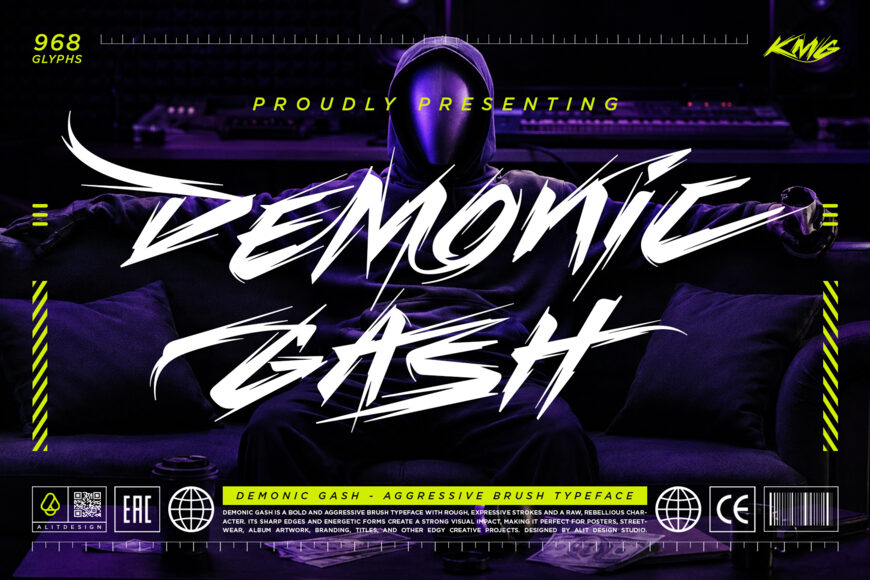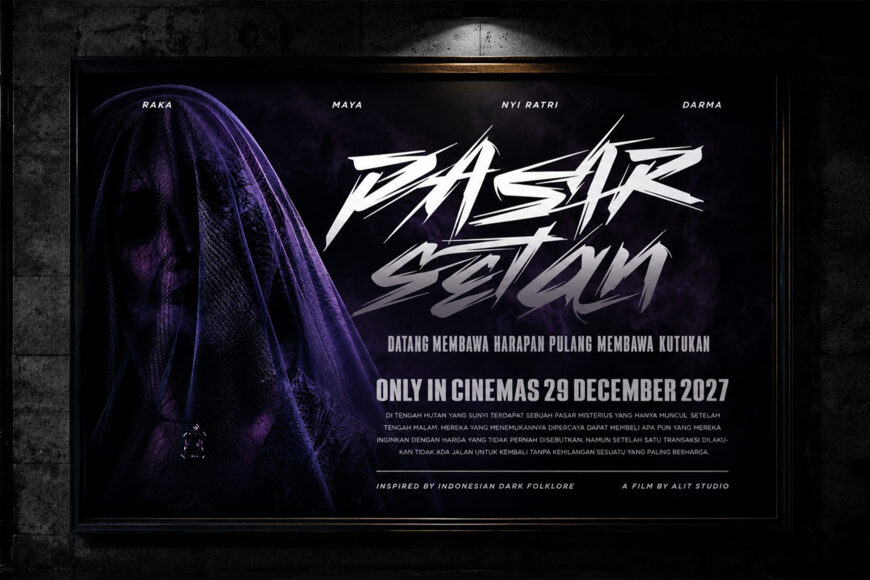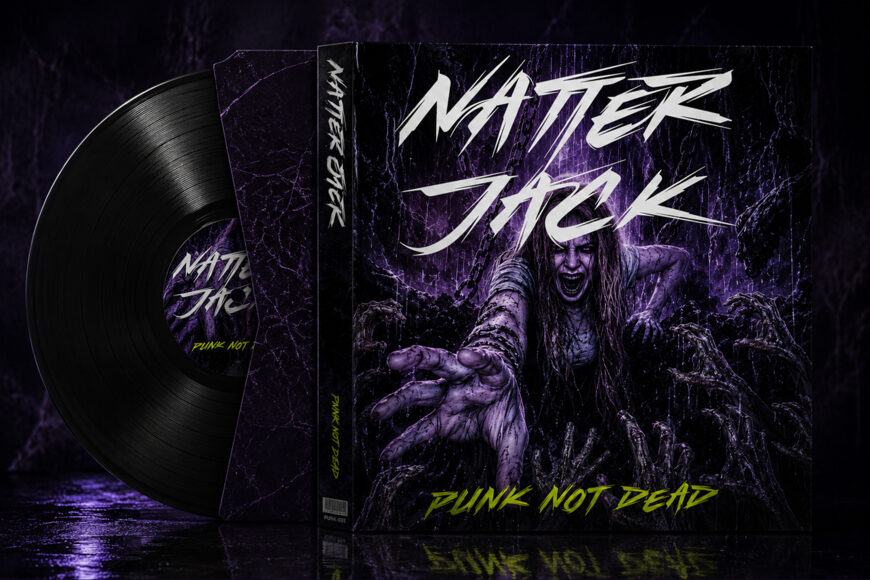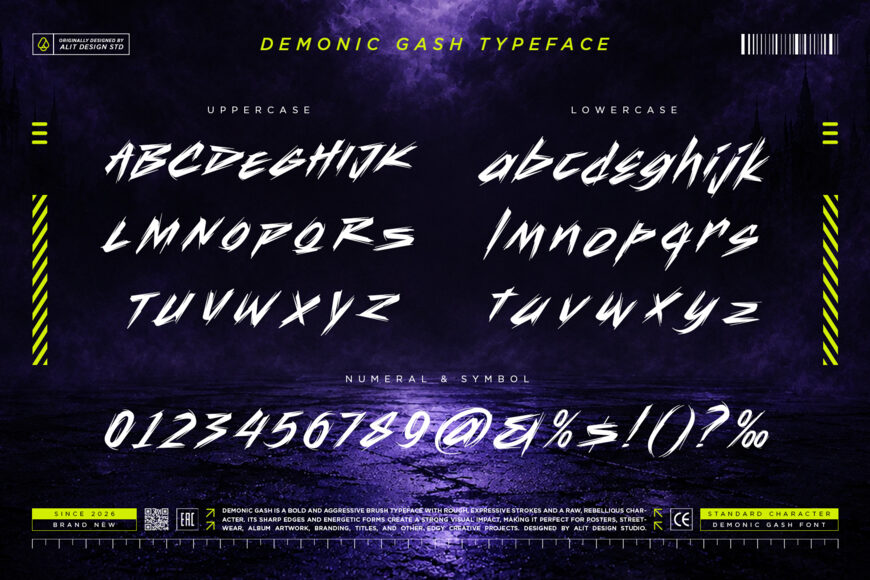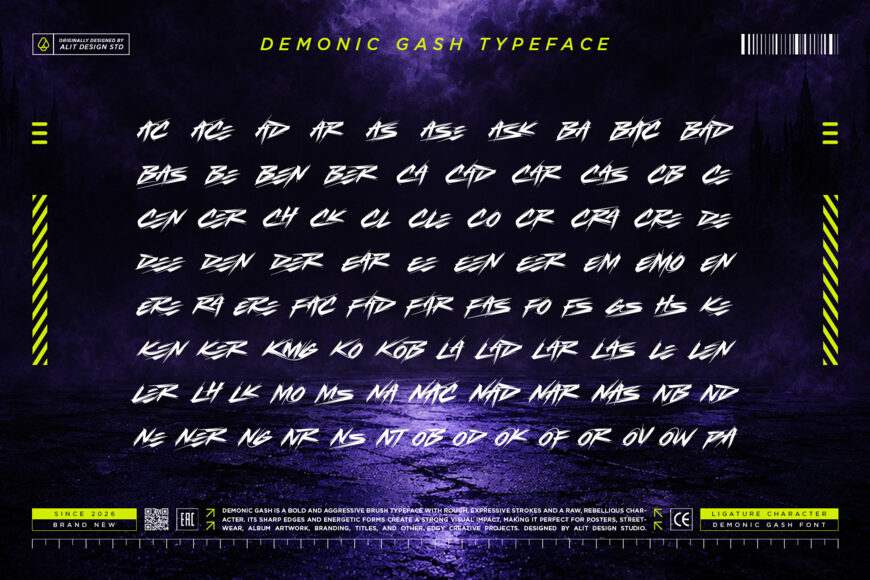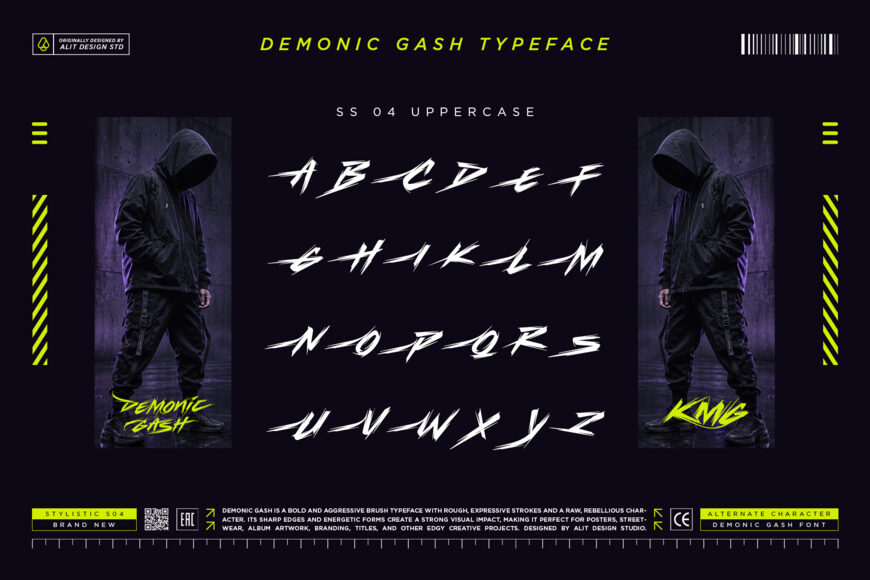
Demonic Gash Font
Unleash raw, untamed energy with Demonic Gash, a bold and aggressive brush typeface designed to make a commanding statement. Crafted with rough, expressive strokes and a rebellious character, this font captures the dark and intimidating essence of dry brushwork. Every letter features sharp edges and chaotic textures, leaving behind a visceral, high-impact visual presence that demands attention.
Perfect for designs that need to break the rules, Demonic Gash thrives in the gritty and the bold. Whether you are designing underground streetwear, heavy metal or punk album artwork, spine-chilling horror movie posters, or edgy branding, this typeface delivers an ominous and forceful atmosphere.